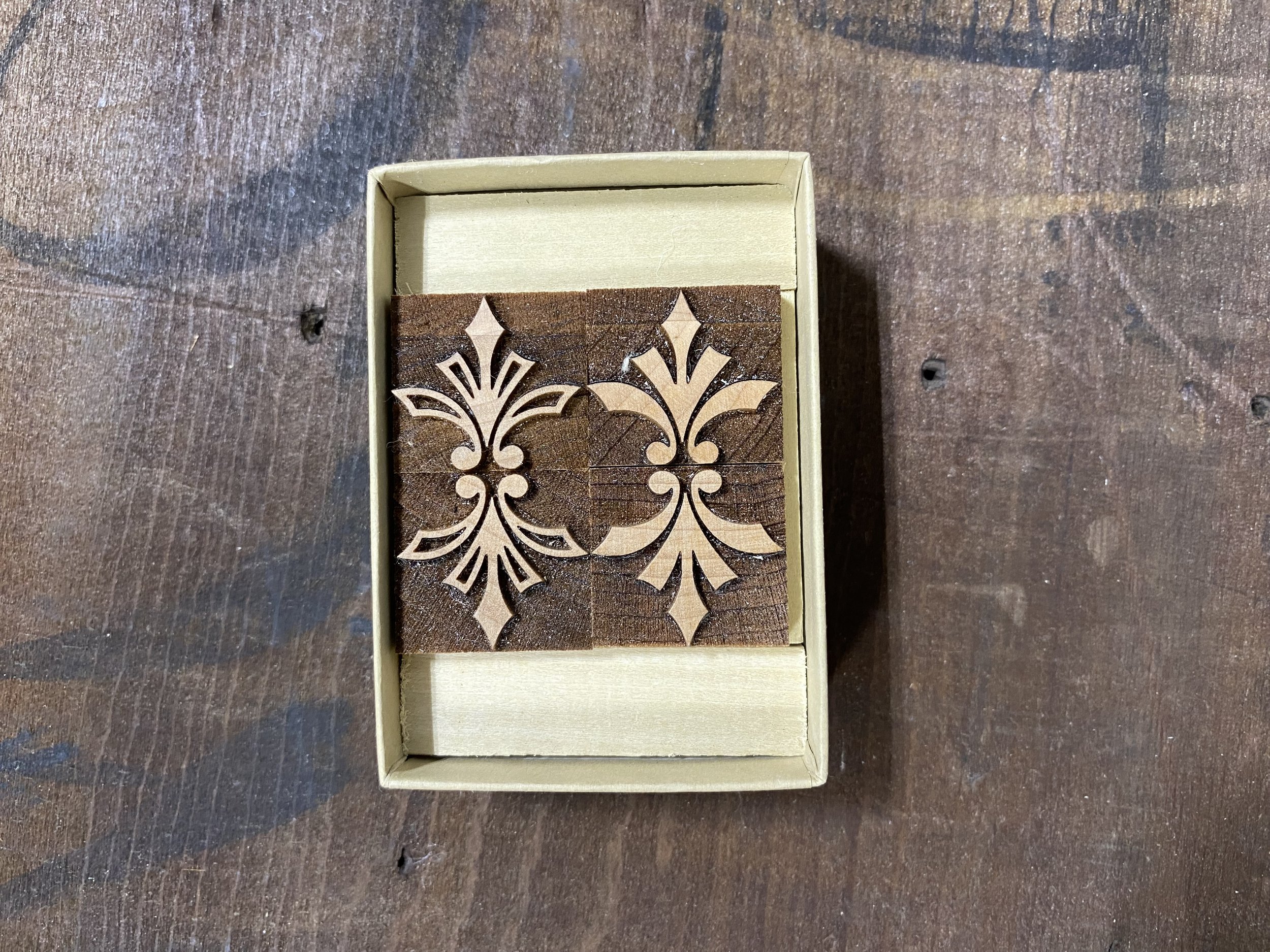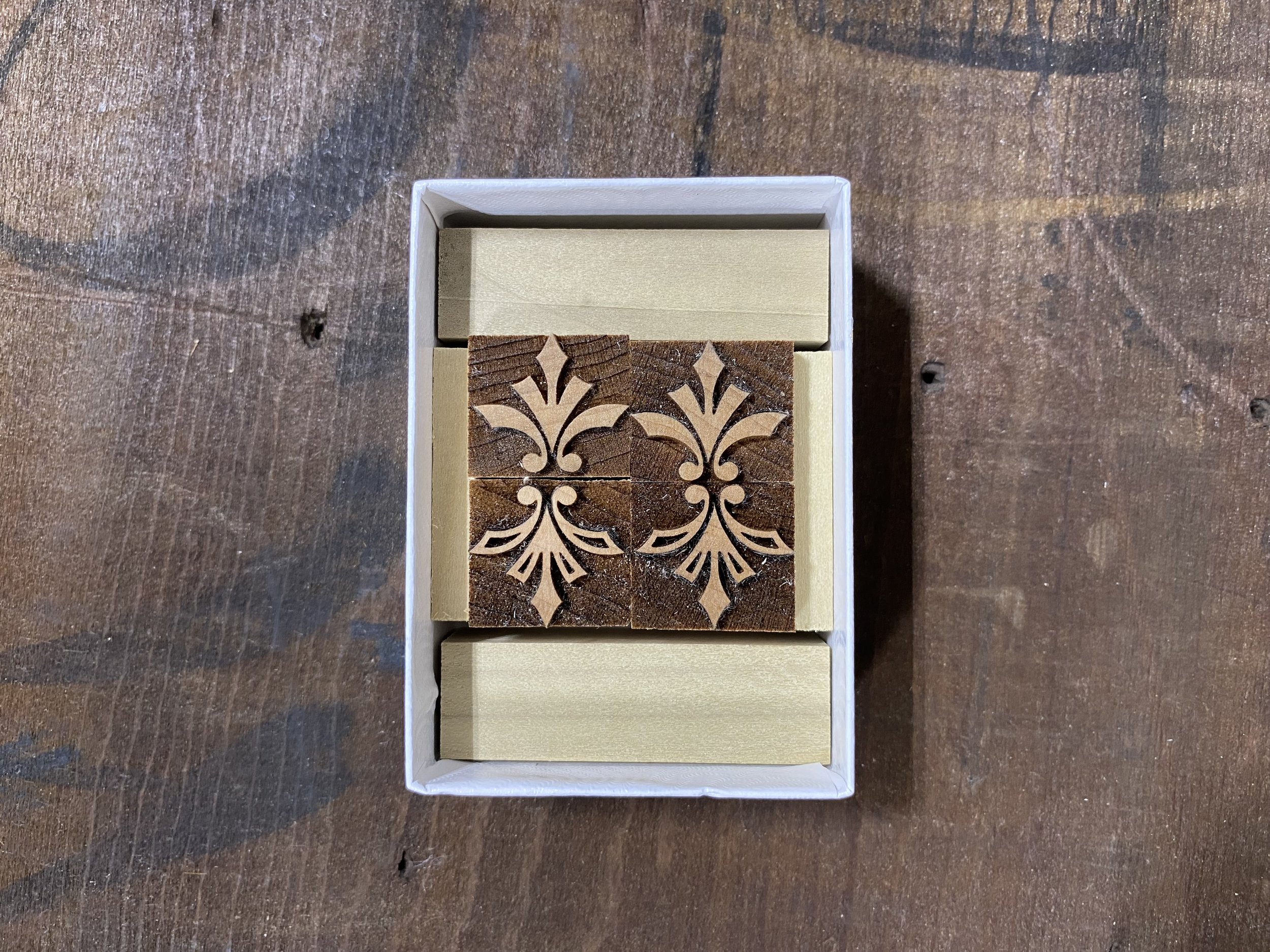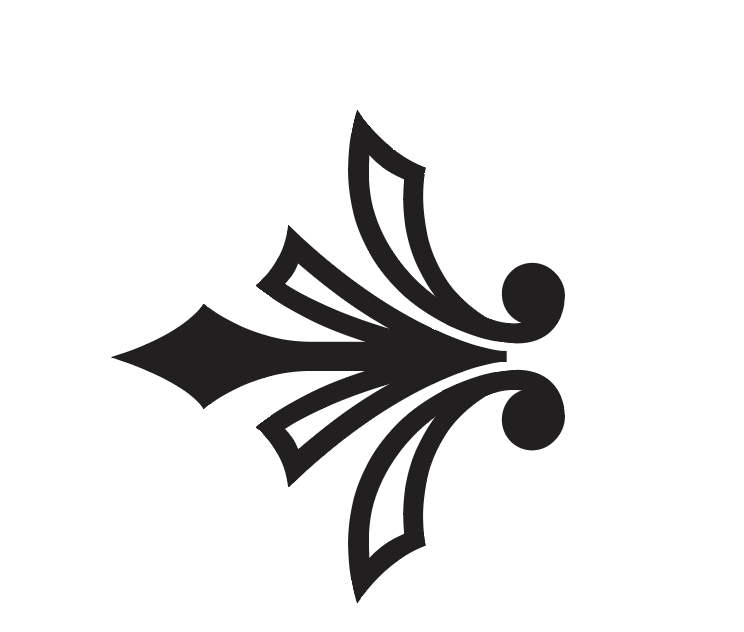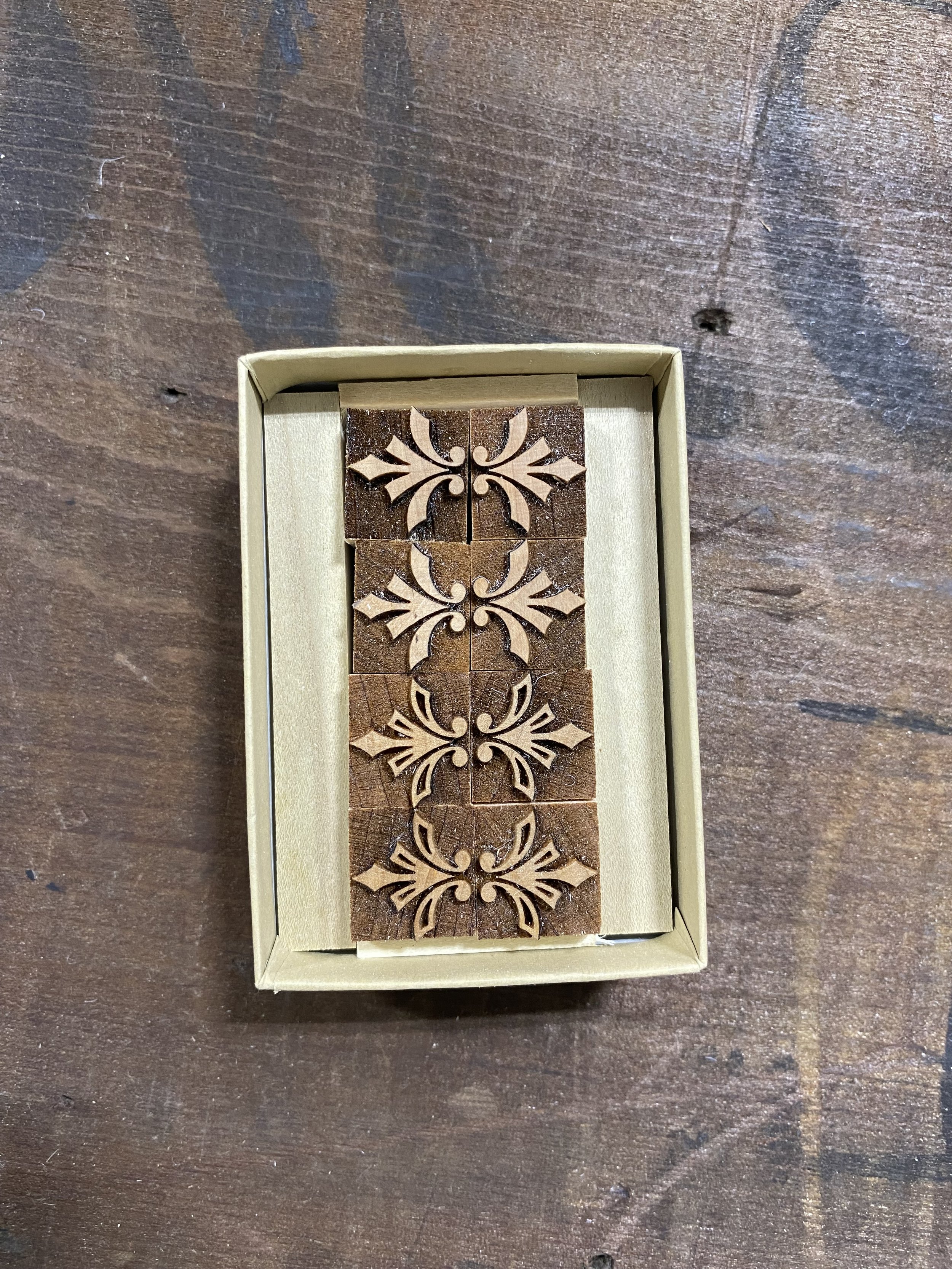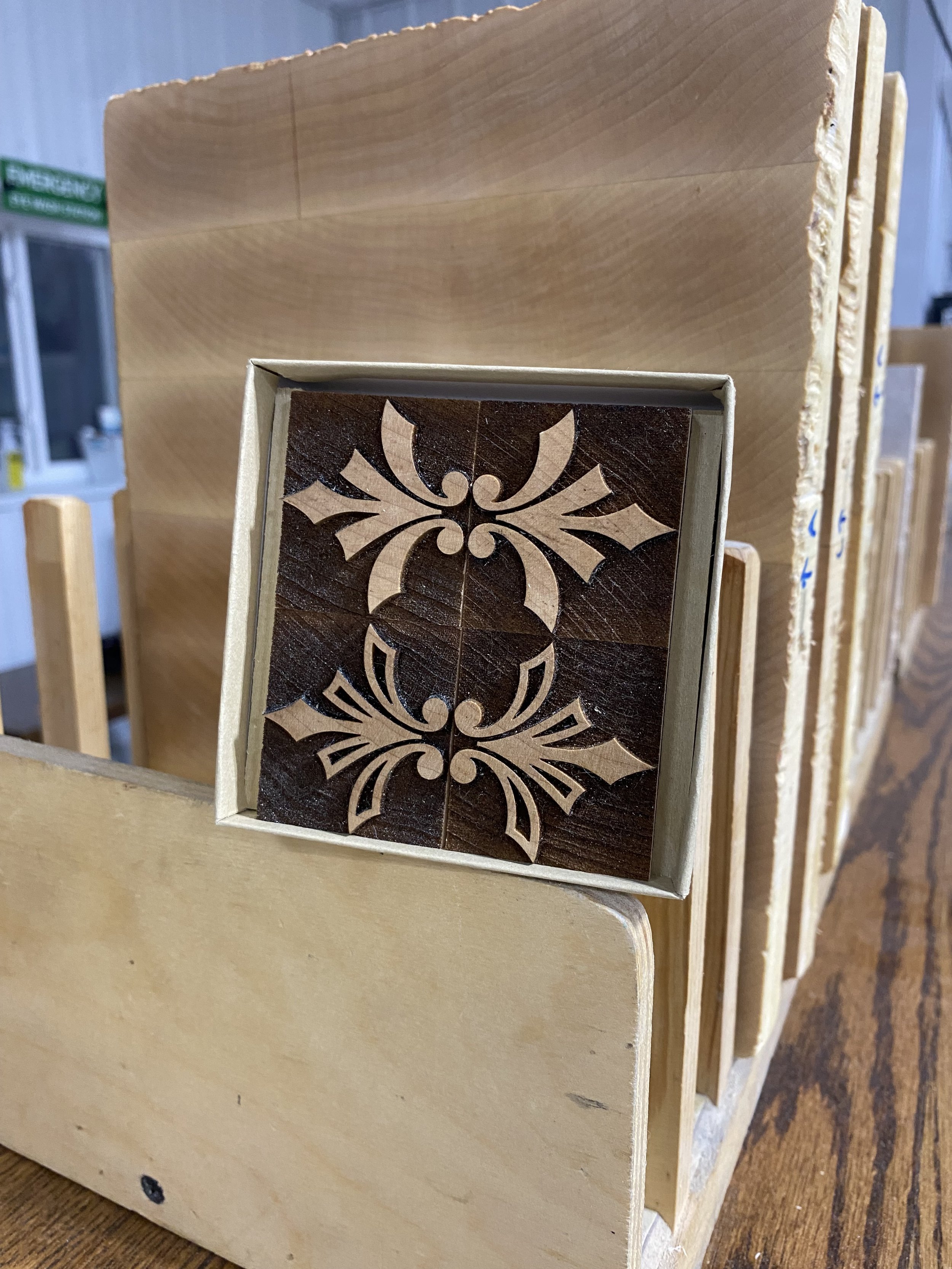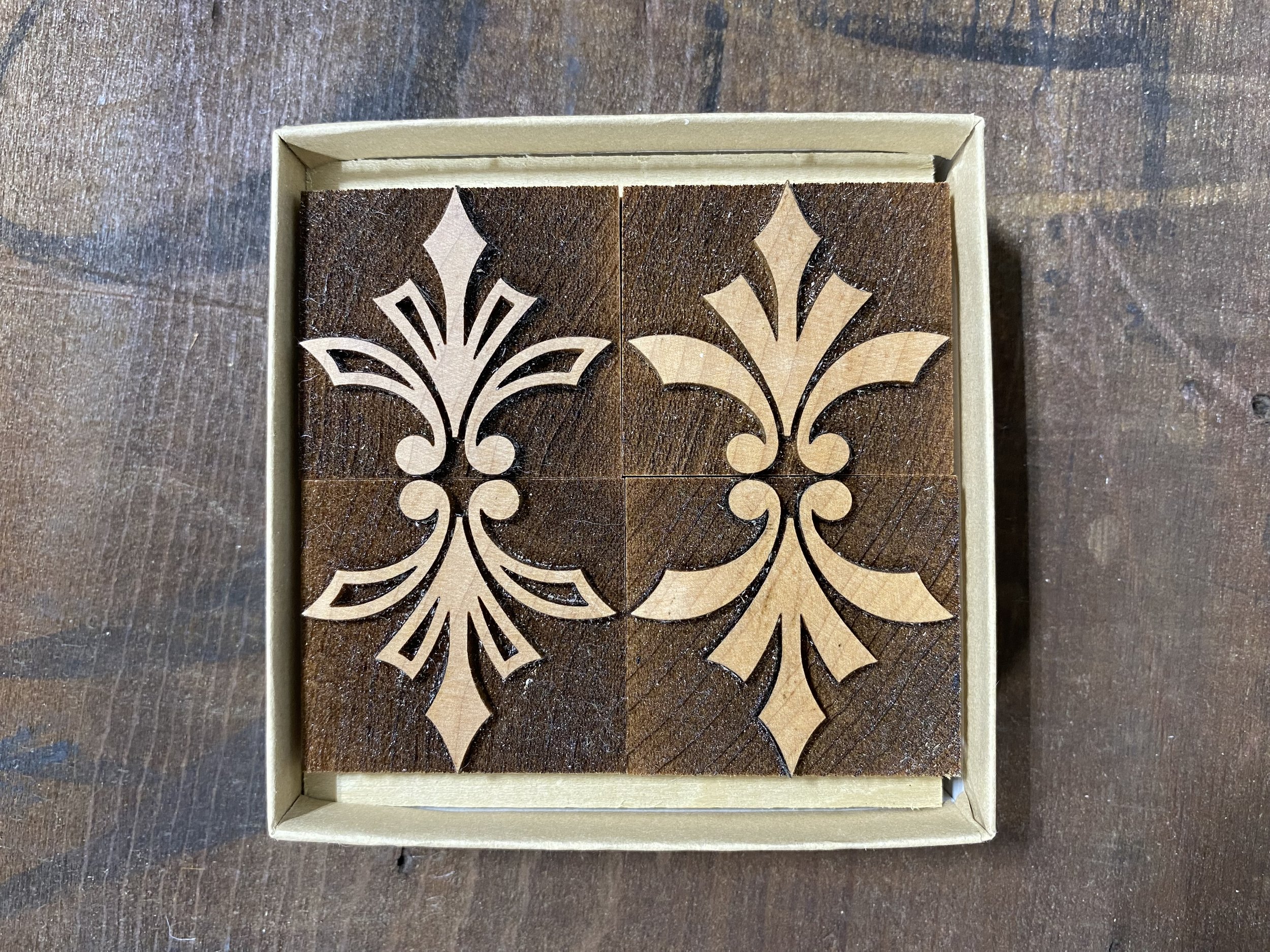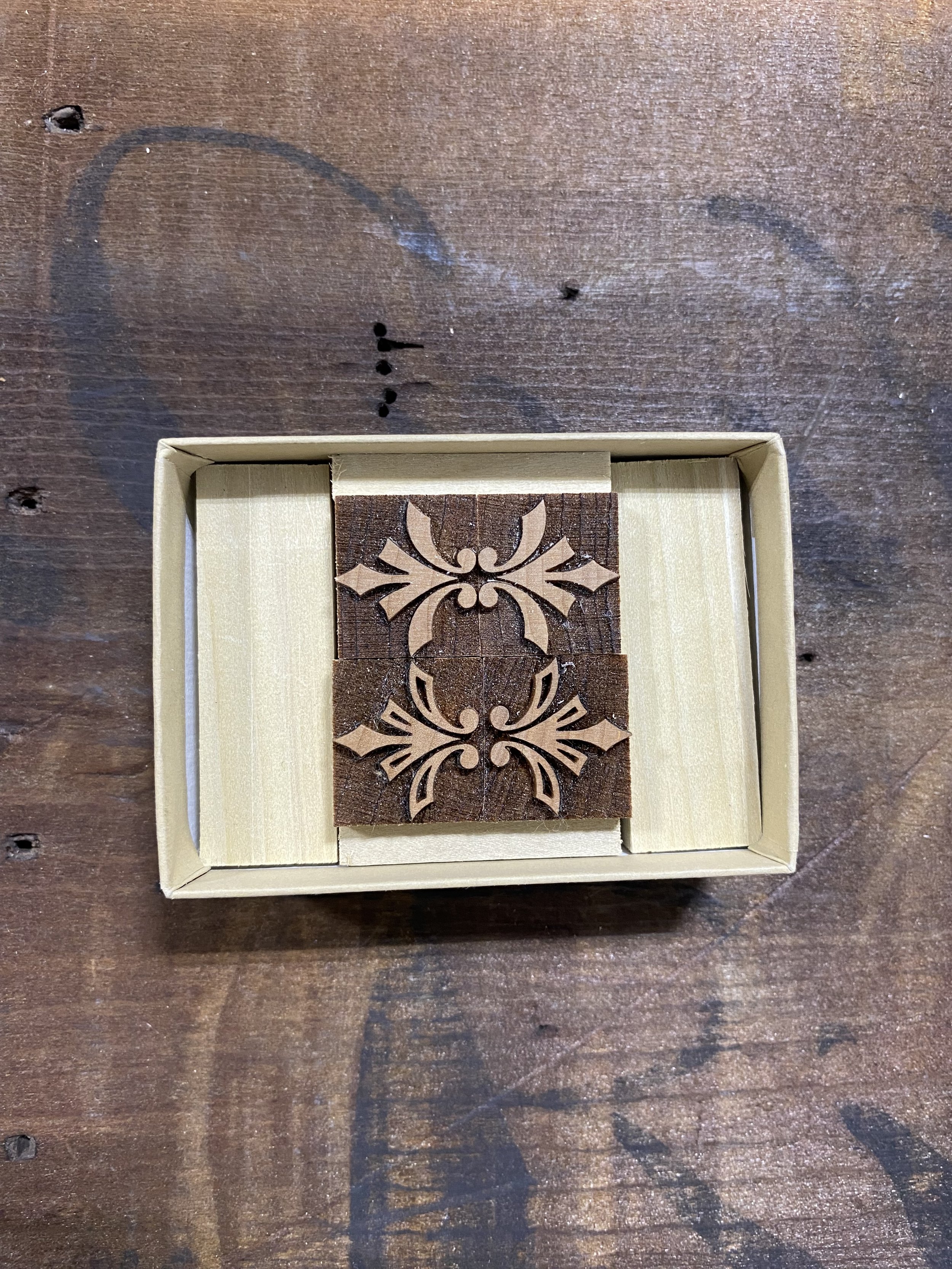
Inspired by Hamilton Wood Type
Cut by Scott Moore
These ornaments were traced from my copy of Hamilton Wood Type Specimen Book #14 and originally cut as plywood patterns for one of my small pantographs. In line with historic use, we sell them as pairs to be used as line ornaments to fill the white space at the end of words and phrases.